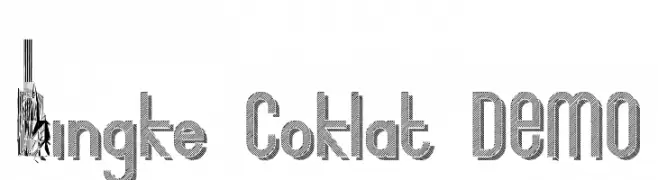
A bold, textured font with diagonal hatching and rounded edges for a modern, decorative look.
A bold, 3D hand-drawn font with textured hatching and a playful, comic-like style.
A bold, decorative font with a crosshatch pattern, perfect for eye-catching designs.
A bold, decorative font with a crosshatched pattern and graffiti-like style.
A bold, decorative font with a crosshatch pattern, ideal for creative projects.
A bold, textured font with a diagonal crosshatch pattern, perfect for dynamic designs.